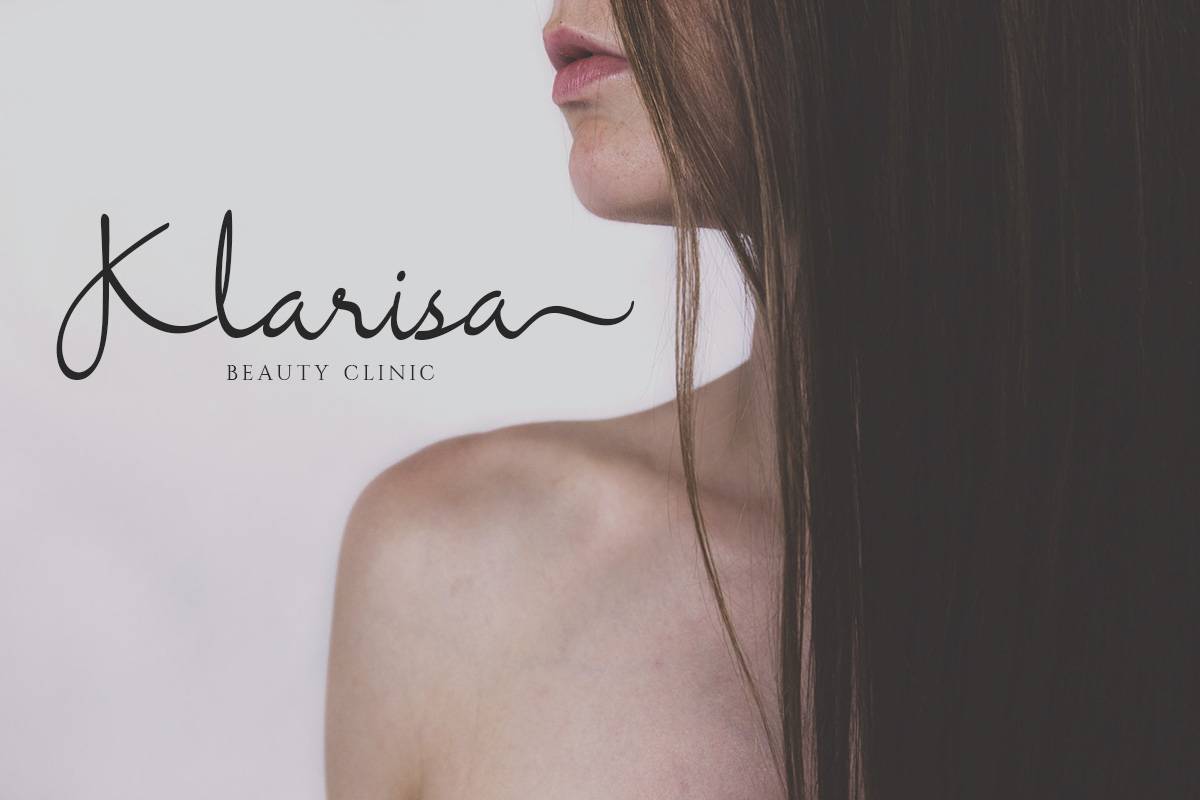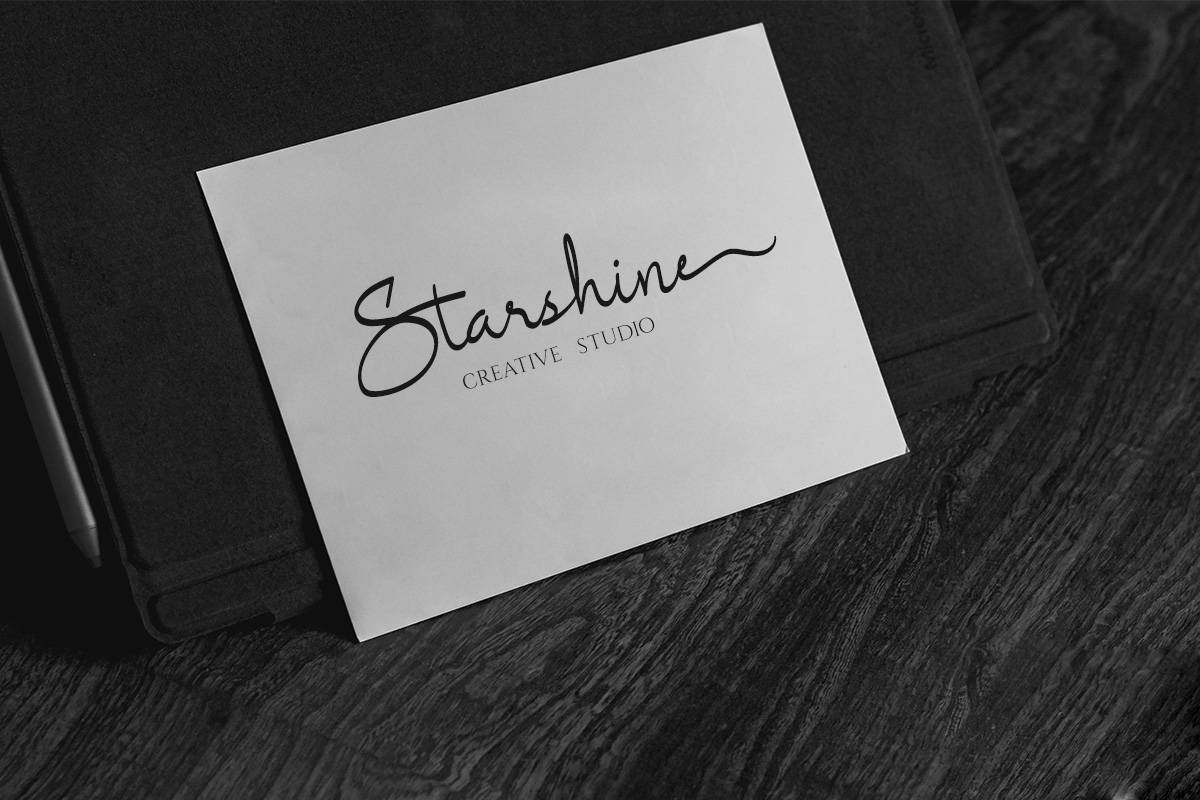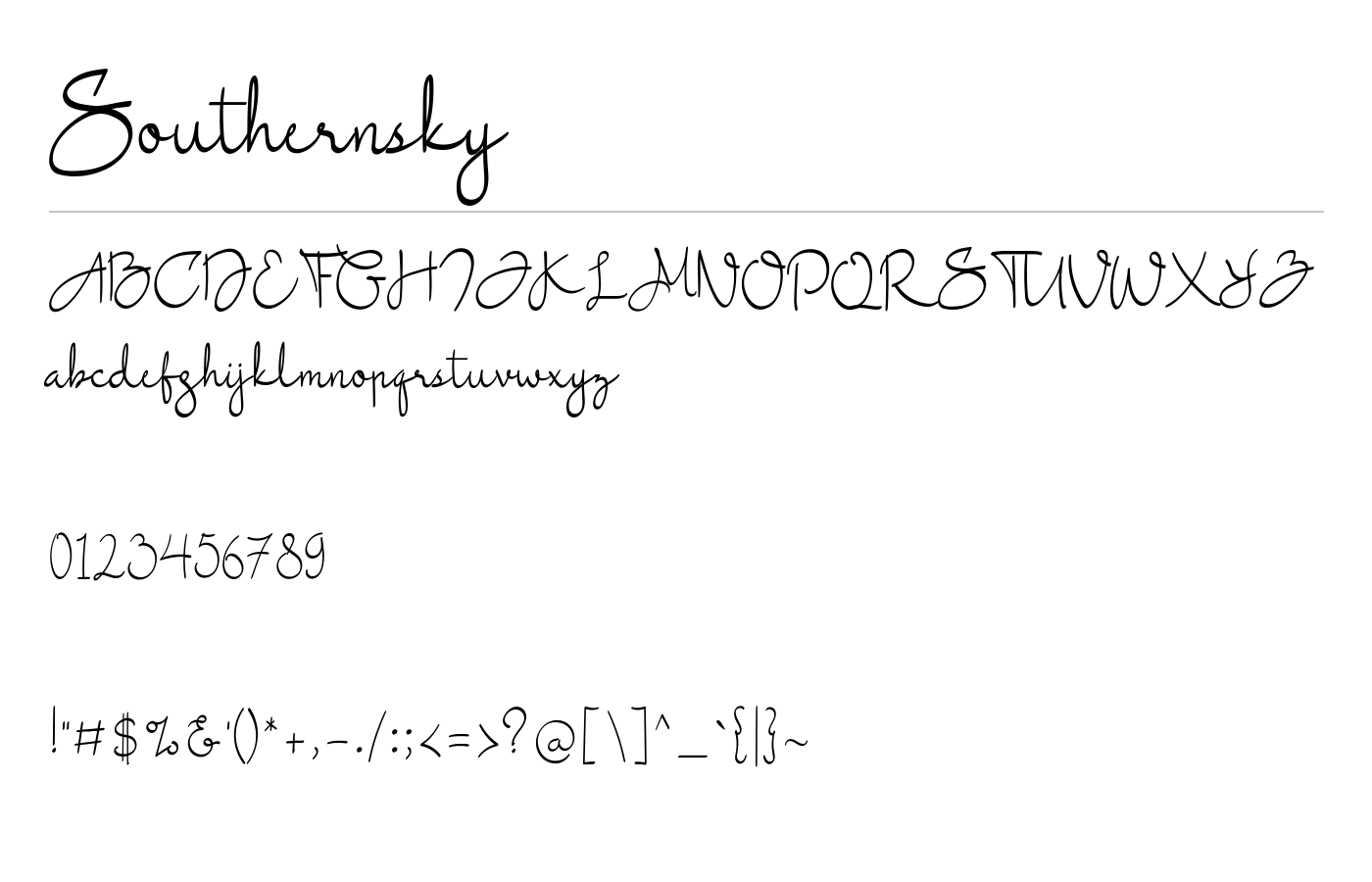
Southernsky is a delicate, handwritten script font with a playful and elegant character. Its thin, fluid strokes and distinctive loops give it a personal, whimsical touch, making it ideal for invitations, branding, and creative projects that seek a friendly yet sophisticated feel. This font works best in headlines or decorative uses where a warm, approachable style is desired.
Southernsky Font
About Southernsky Font
| Designer | lemonthe 2020_Dwi Ahidian |